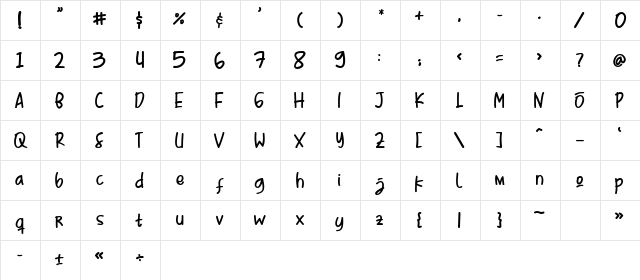
Mr. Kebab Demo Regular
| Designer | Omotu 2018 |
Design Context for Mr. Kebab Demo Typeface
Mr. Kebab Demo is a composed and adaptable typeface that performs quietly and consistently across a wide range of design contexts.